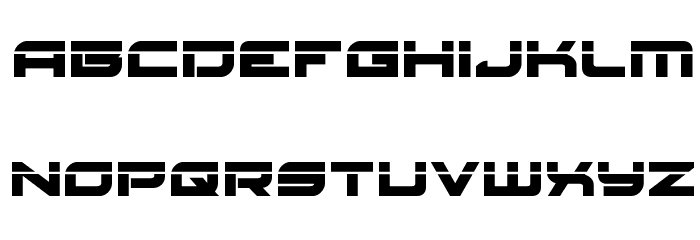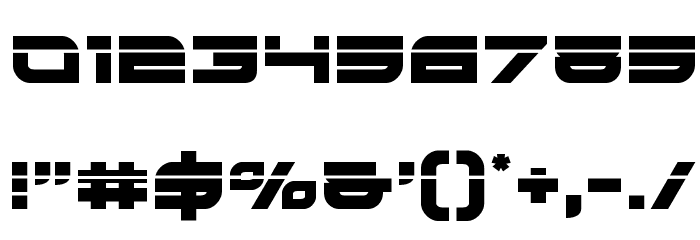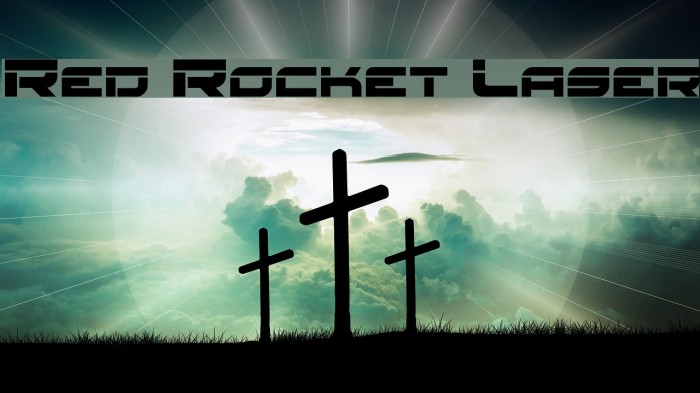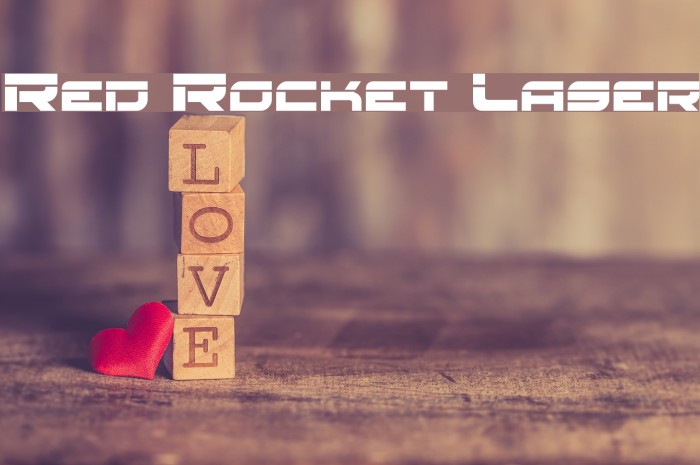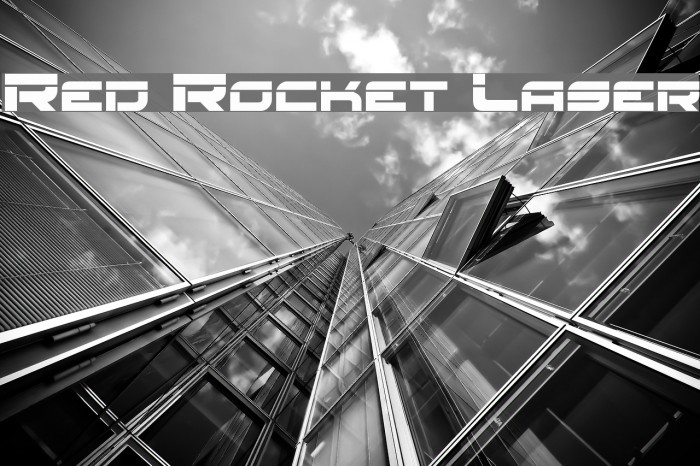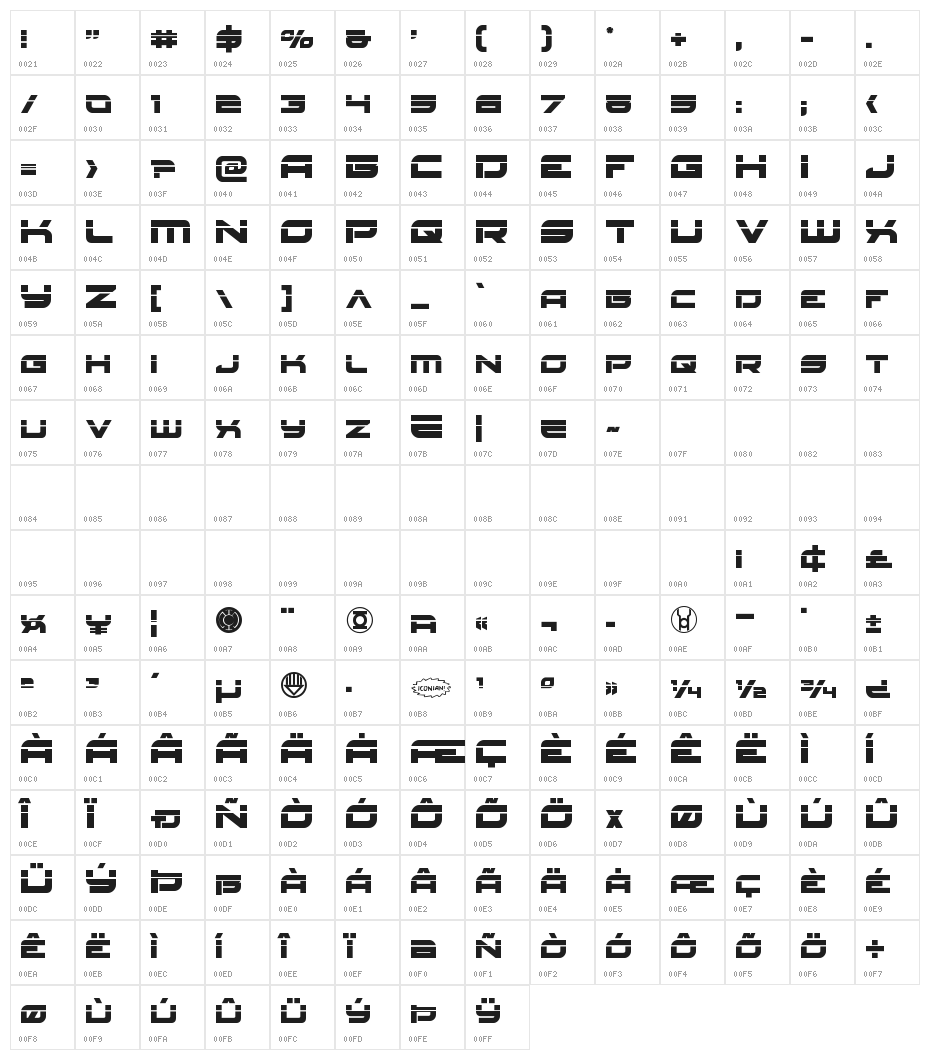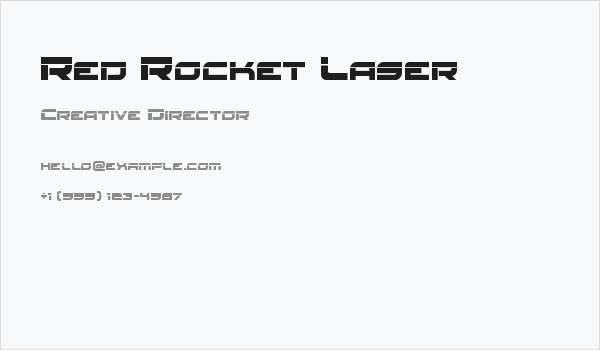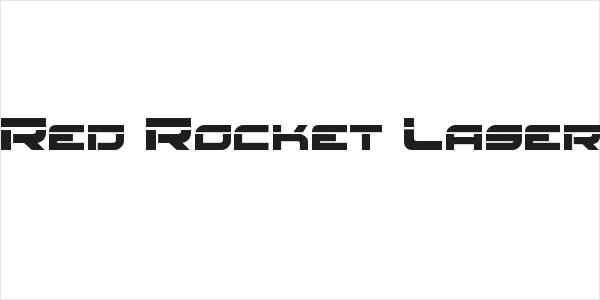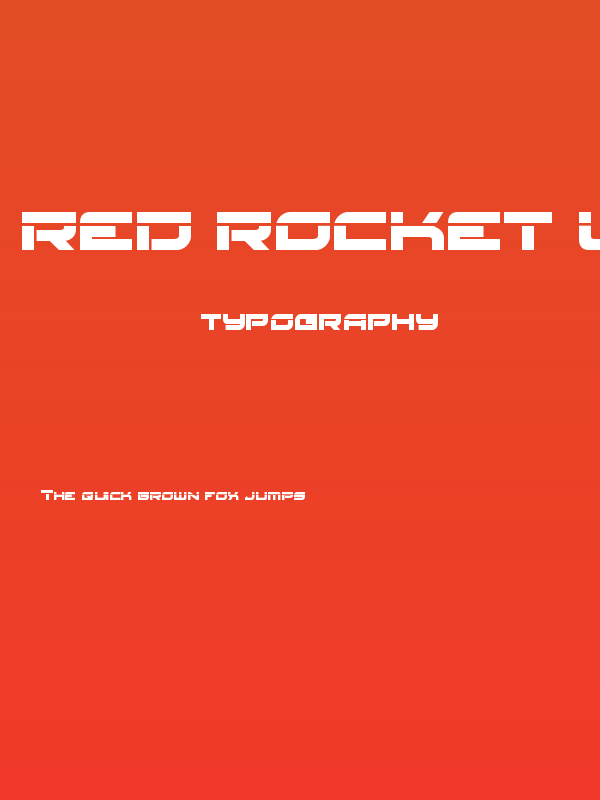
Red Rocket Laser Font
This font features a bold, futuristic design with a strong geometric structure. The characters are constructed with sharp angles and straight lines, giving it a modern and dynamic appearance. The uppercase letters are particularly striking, with a uniform height and width that create a cohesive look. The lowercase letters maintain the same angular style, ensuring consistency throughout the typeface. Numbers and special characters are designed to match the overall aesthetic, making this font versatile for various applications. Its boldness and unique style make it stand out, ideal for projects that require a modern and impactful visual identity.
A bold, futuristic font with sharp angles and a geometric structure.
- Proposed Projects: Ideal for sci-fi themed designs, technology branding, video game titles, and futuristic posters.